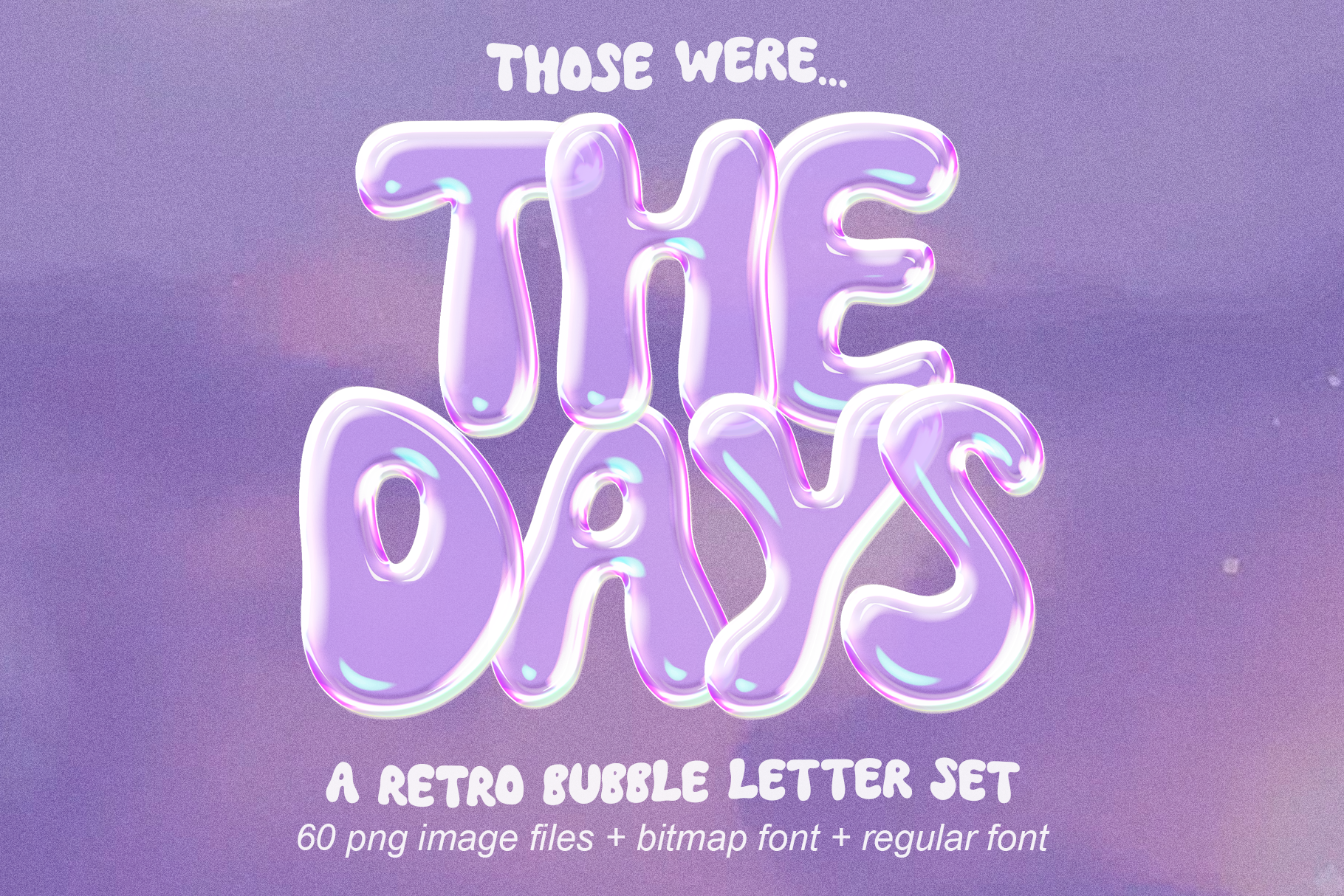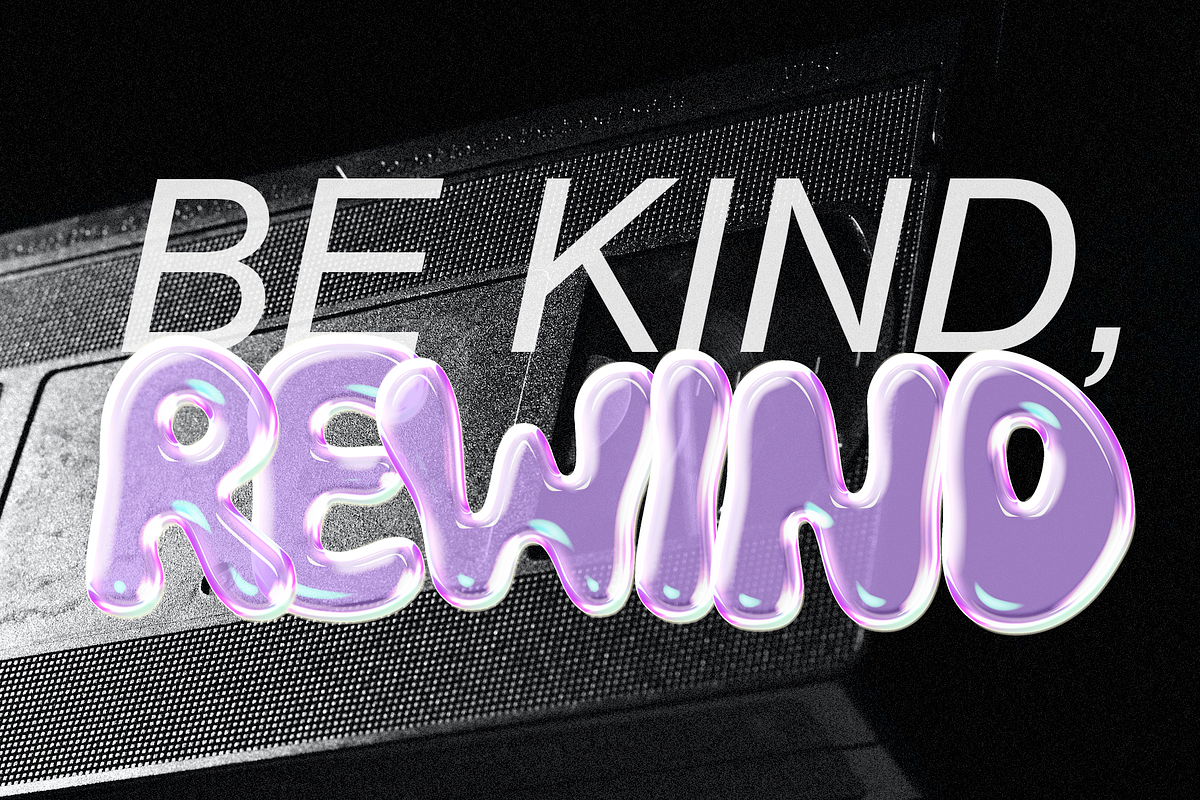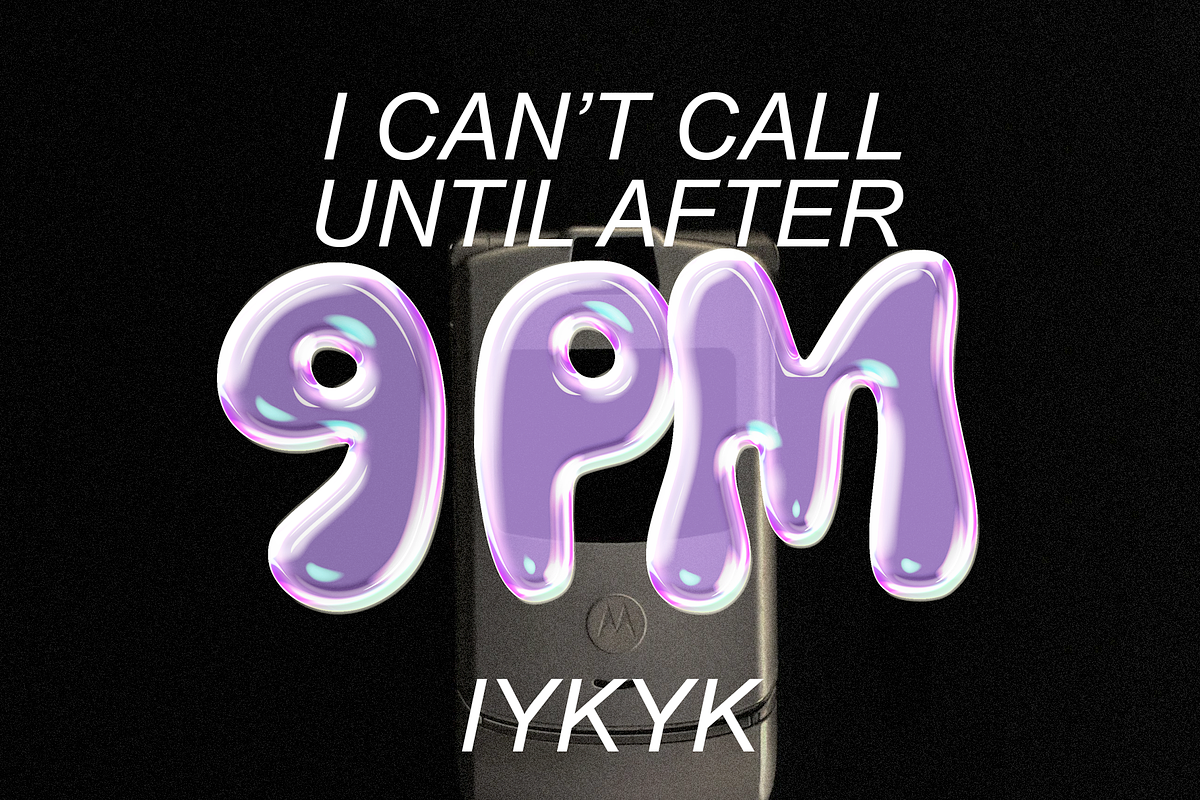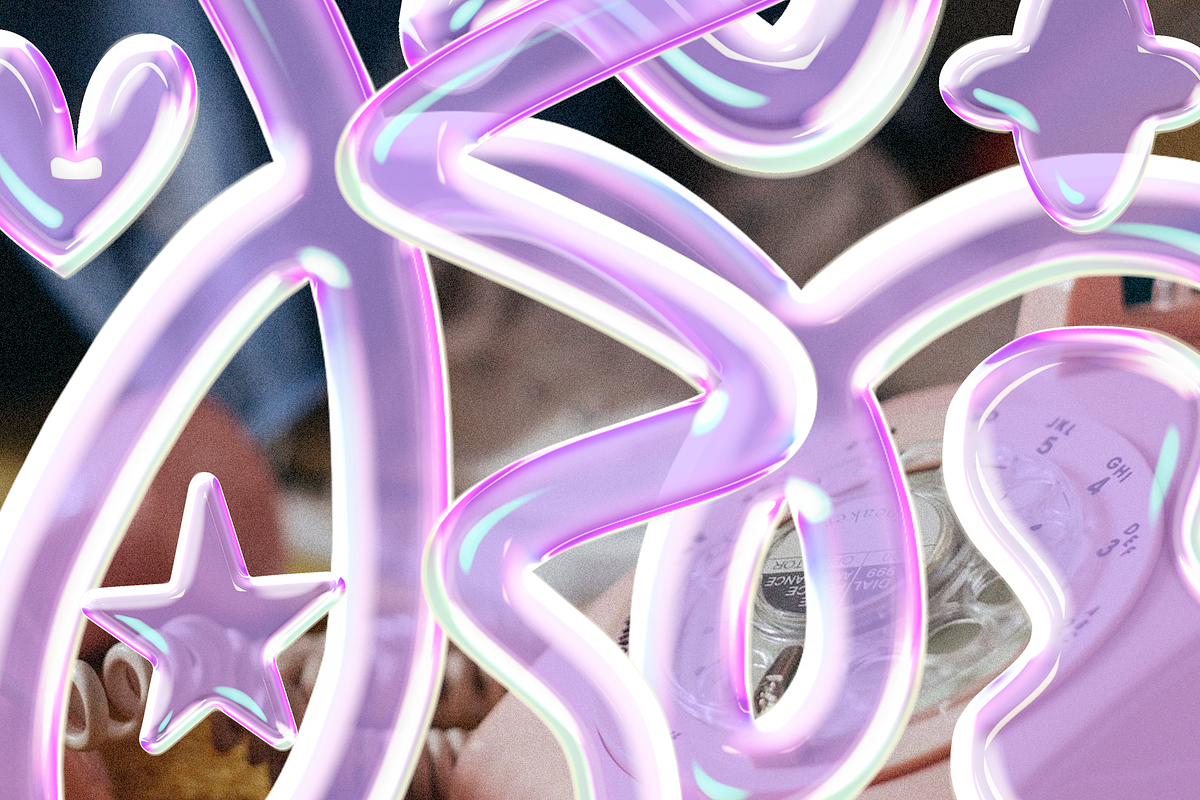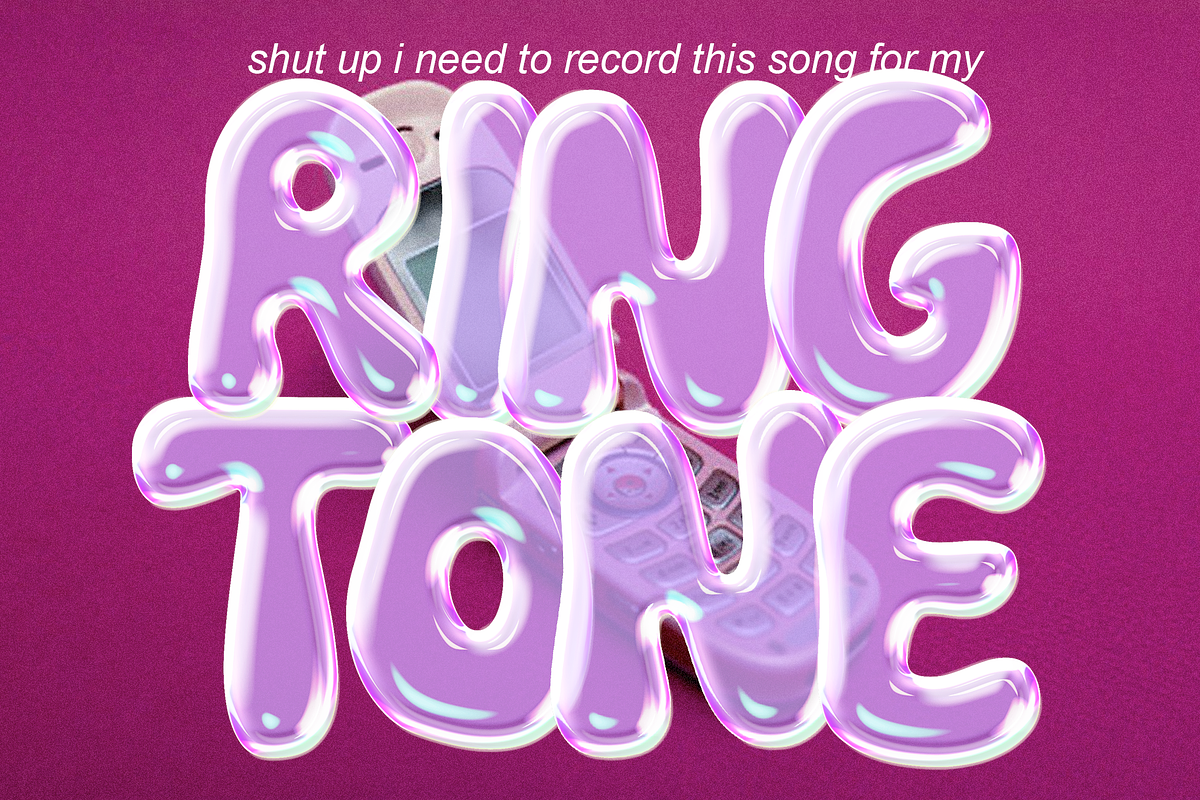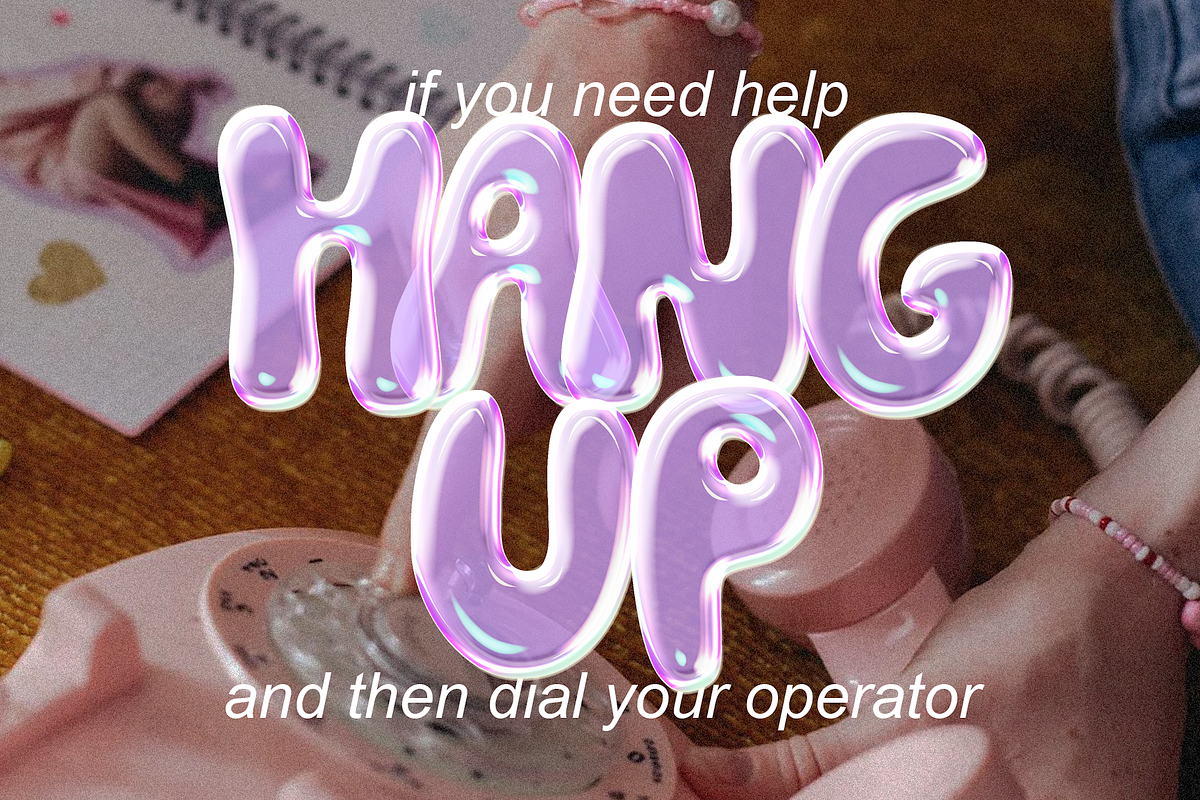
The Days | Bubble Letters + Font
This 3D bubble let set will make your designs truly stand out! If you grew up in the 90s, make sure to take a look through the preview pictures and take a trip back in time ツ
These letters were created from my original font - The Good Days. I've included that font in this download for you. You can check out the regular version only here - https://crmrkt.com/5JW0lO